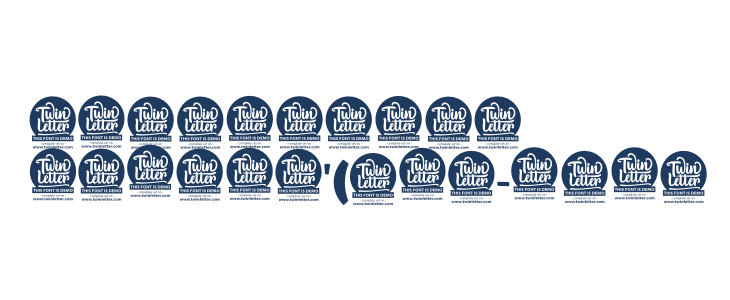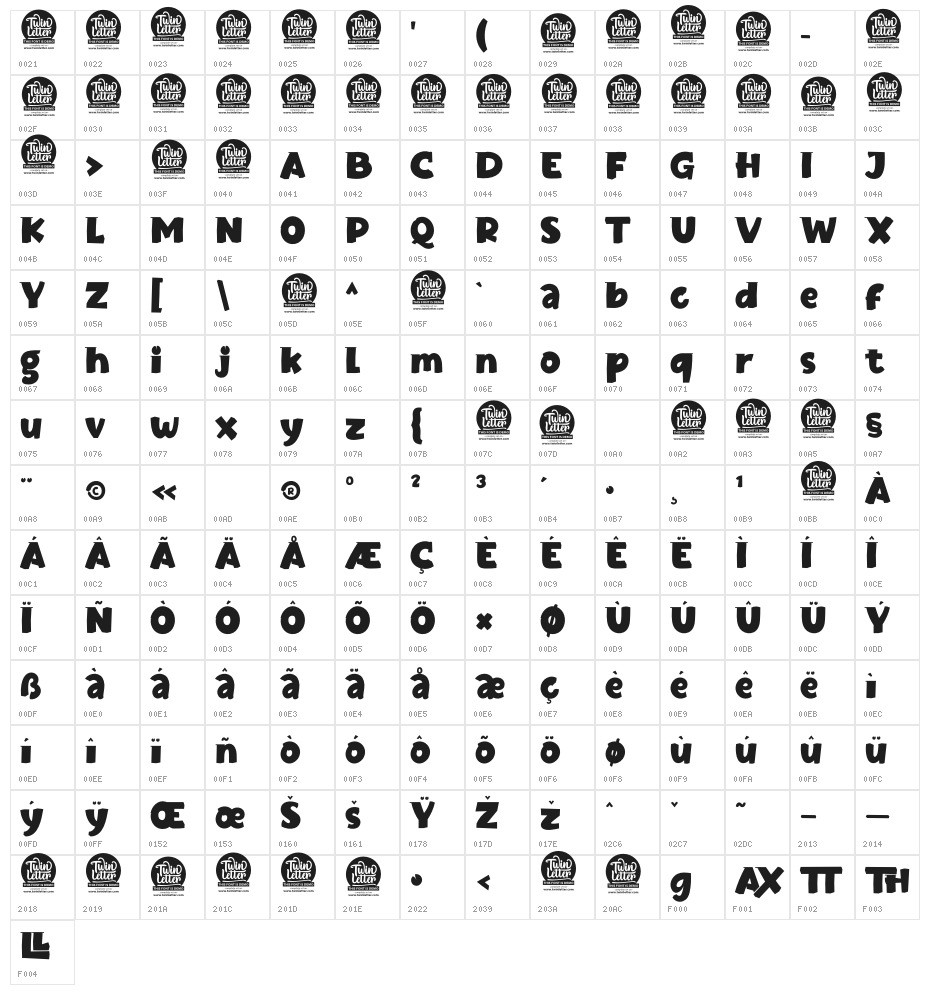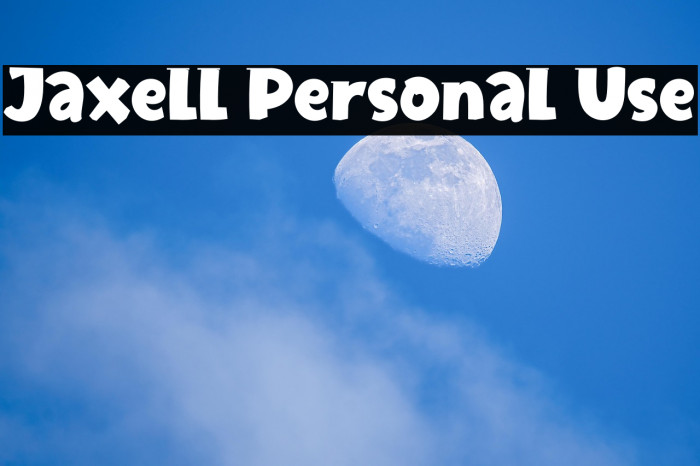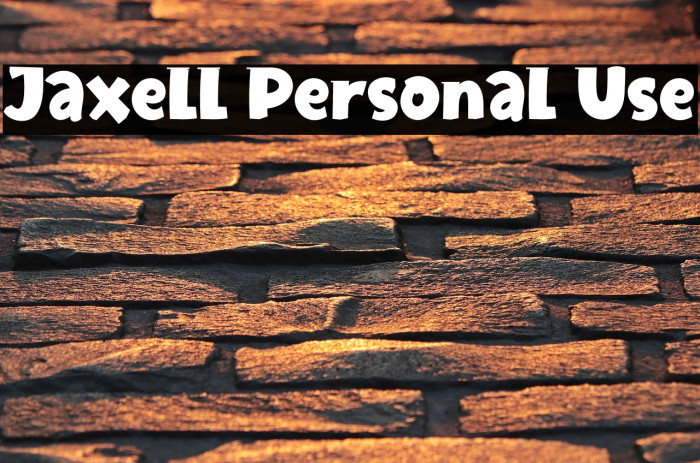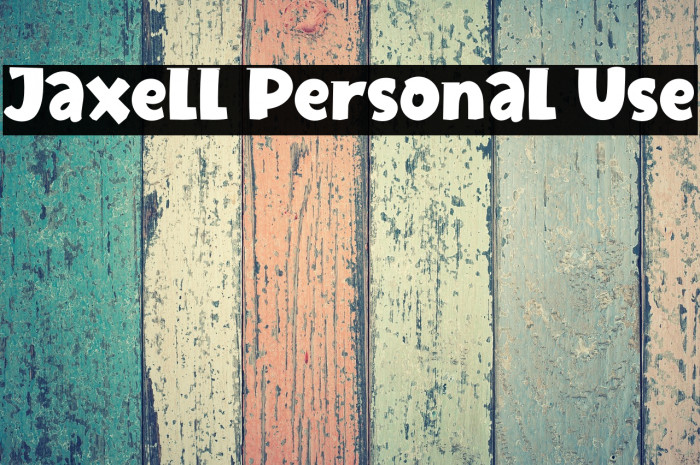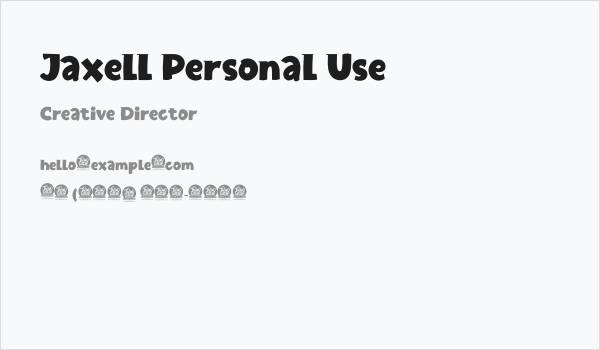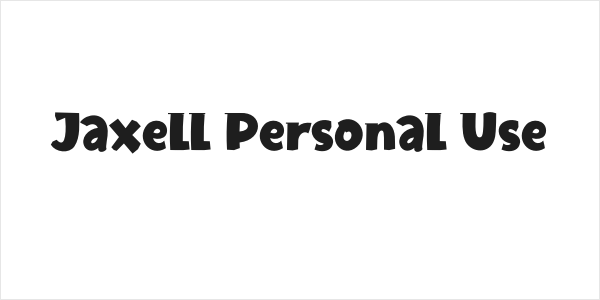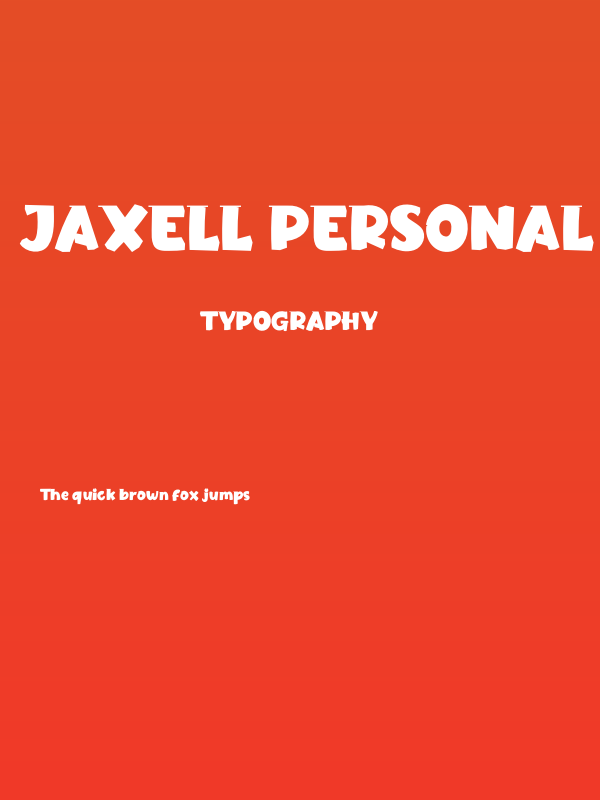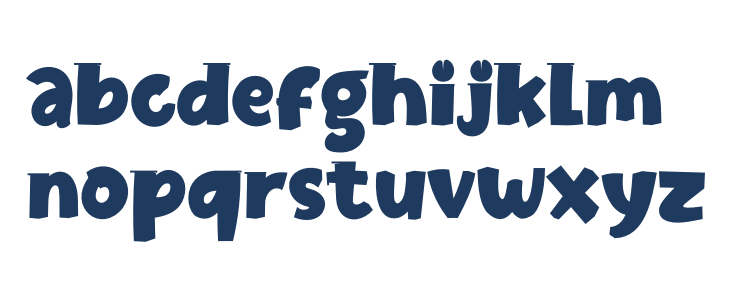
Jaxell Personal Use Font
Jaxell Personal Use Description
This font features a bold and playful design with a strong presence. The characters are rounded and slightly irregular, giving it a whimsical and friendly appearance. The uppercase letters are robust and commanding, while the lowercase letters maintain a consistent style with a touch of quirkiness. The numbers and special characters follow the same playful theme, making the font suitable for creative and informal projects. Its thick strokes and unique character shapes make it stand out, adding a fun and energetic vibe to any design.